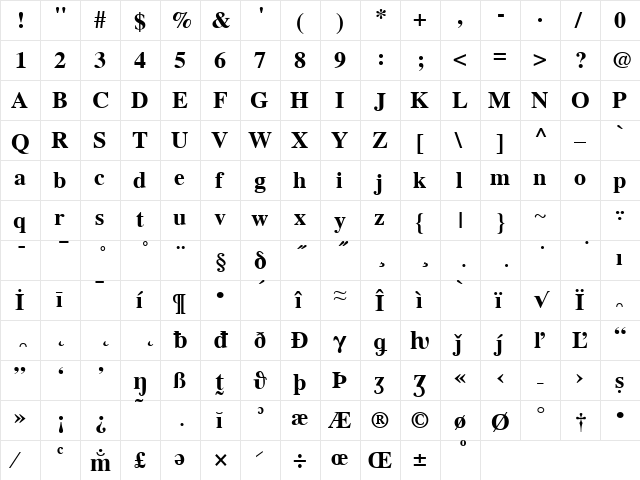
JAIS1 TTW Bold Font Preview
JAIS1 TTW Bold
JAIS1 TTW Bold Font Details
Design Context for JAIS1 TTW Typeface
JAIS1 TTW takes a measured approach to typography — its balanced proportions and neutral character make it a reliable workhorse for both digital and print work. The heavy weight commands attention and anchors typographic hierarchies.